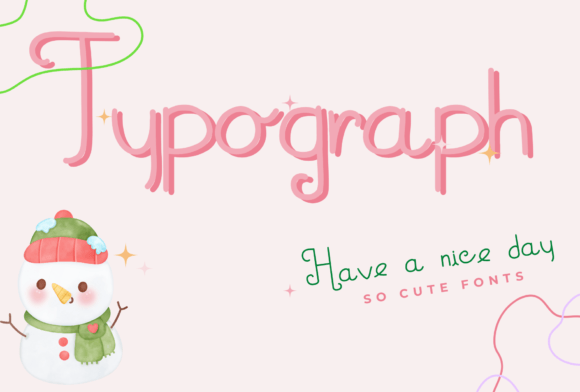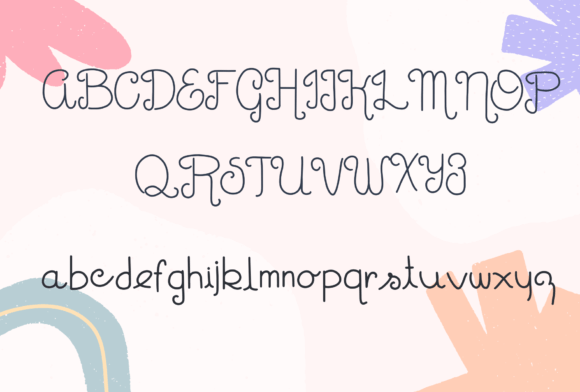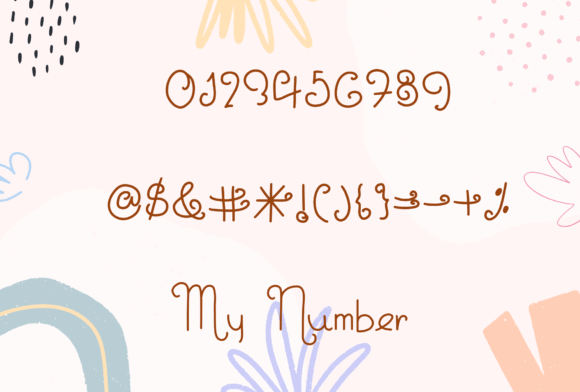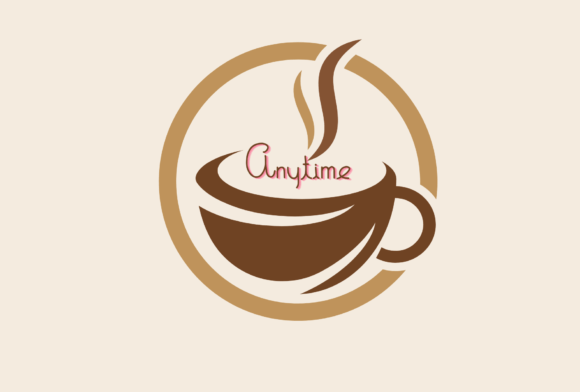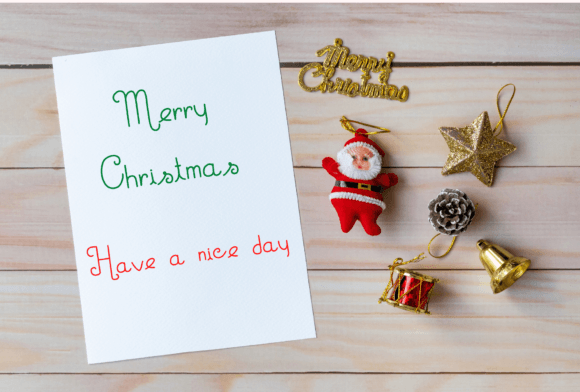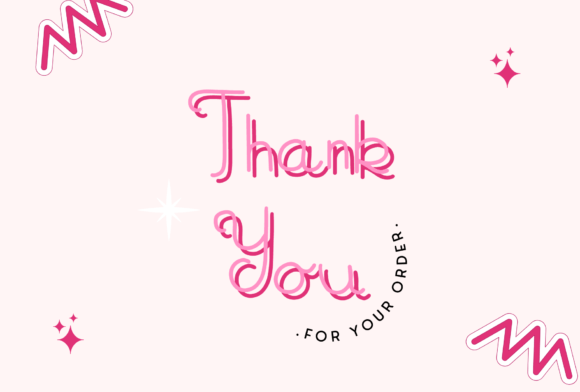
Typograph Font
About Typograph Font
A Fun and Versatile Handwriting Typeface
The Typograph font download offers a delightful handwritten style with a simple and clear design. It’s especially perfect for educational projects, but it can easily fit into a wide variety of creative uses. Whether you’re a teacher, designer, or student, this font brings charm and clarity to your work.
Designed for Learning and Creativity
Typograph’s friendly and legible form makes it ideal for classroom materials, worksheets, presentations, and learning apps. Its clean strokes help improve readability, which is essential for younger audiences and educational content.
Suitable for Any Occasion
Beyond education, this font is great for advertising, illustrations, greeting cards, social media, and more. Its universal appeal and light-hearted design make it easy to pair with different styles and formats. You can trust the Typograph font download to deliver a consistent and approachable look.
Bring simplicity and style to your next design with the Typograph font download—a handwritten font that combines function and fun in every stroke.